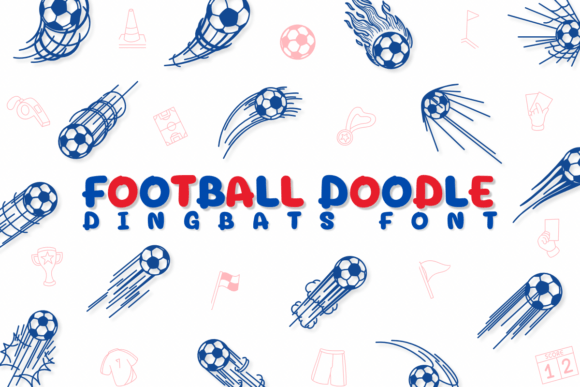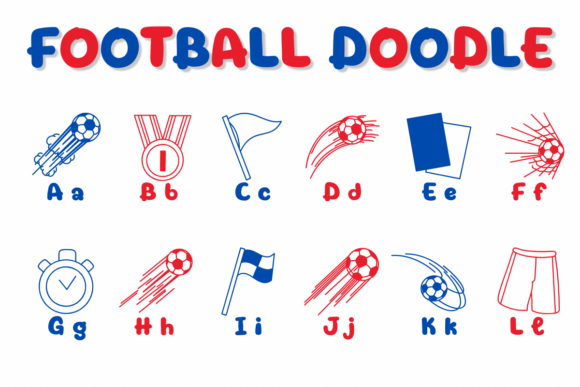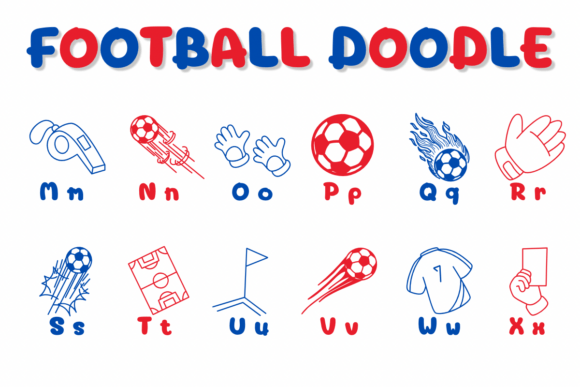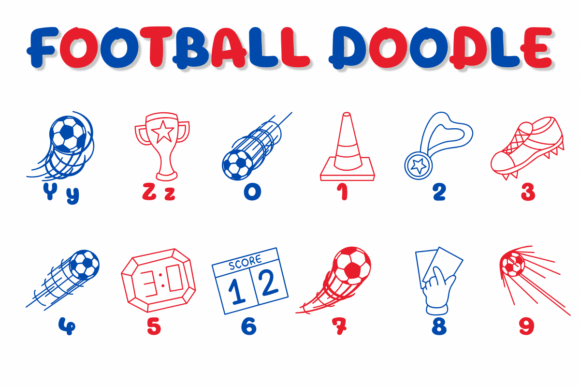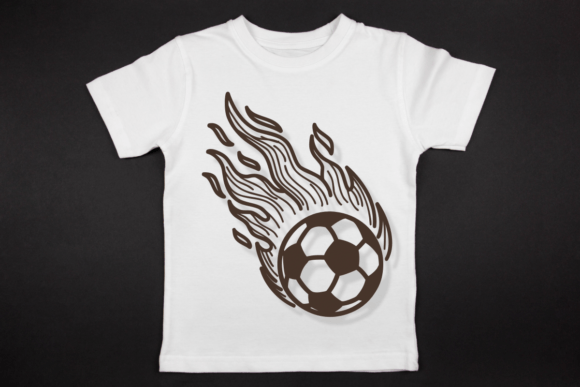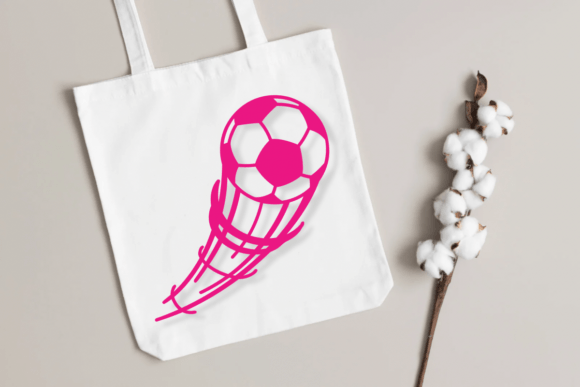
Get Ready to Score Big with Your Creative Projects
Have you ever been brainstorming ideas for a project and suddenly, a spark of inspiration hits you? Maybe it was a trip to the beach, a conversation with a friend, or a glimpse of a soccer match on TV. Whatever it was, it sparked a creative moment that you just can’t shake off. For designers, these moments are what make our jobs so exciting – and for those who love soccer, the Football Doodle Font is about to become your new best friend.
This delightful dingbat font is packed with soccer-themed icons and graphics, making it the perfect addition to any project. Whether you’re designing wedding invitations, crafting DIY decorations, or creating logos for your favorite team, the Football Doodle Font is sure to bring a touch of fun and personality to your work.
Football Doodle Font Key Features
- Unique Characteristics: The font features a playful, hand-drawn style with a focus on football-inspired doodles, making it perfect for sports-themed designs.
- Character Count: The font includes a wide range of characters, including uppercase and lowercase letters, numbers, and punctuation marks, as well as various doodle elements.
Designer Review: Football Doodle Font
Overall, I’d say the Football Doodle Font is a fun and quirky addition to any design project. The font has a playful, hand-drawn feel that’s perfect for sports-related designs, or anything that needs a bit of whimsy. ✨ The unique, doodle-inspired characters add a lot of personality to your work, and the font is well-suited for use in social media graphics, posters, and other promotional materials.
- What works well:
- Playful, hand-drawn feel
- Unique, doodle-inspired characters
- Perfect for sports-related designs or whimsical projects
However, there are a few limitations to consider. ⚠️ The font may not be the best choice for formal or professional projects, as its playful nature can come across as unprofessional. Additionally, the font may not be suitable for use in very small sizes, as the characters can become difficult to read.
Overall, I’d recommend the Football Doodle Font for designers who want to add a bit of fun and personality to their work. Just be sure to use it in the right context – and with the right amount of caution.
Combine the Football Doodle Font with other fonts or graphics to add depth and interest to your design.
Use the font to create eye-catching headings or titles.
Sports-themed designs, such as posters, flyers, or social media graphics.
School or team spirit designs, such as banners or t-shirts.
Fun and playful designs, such as invitations or party decorations.